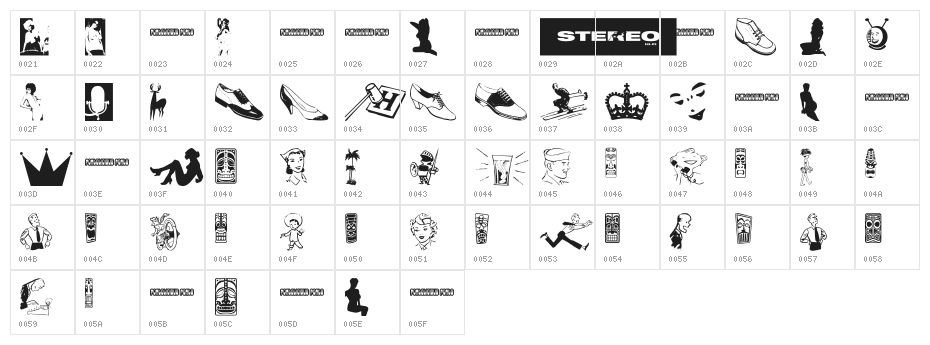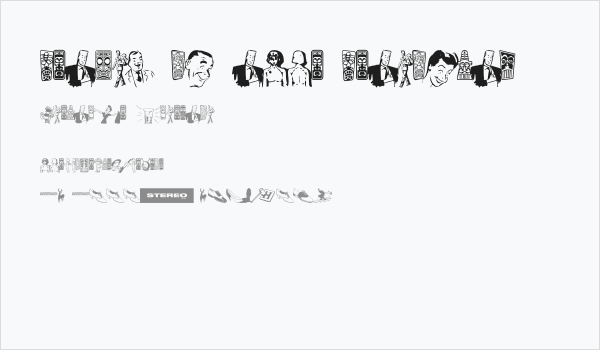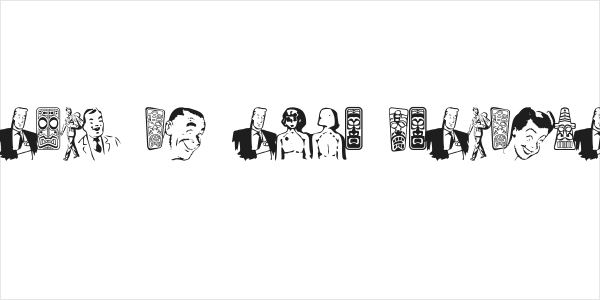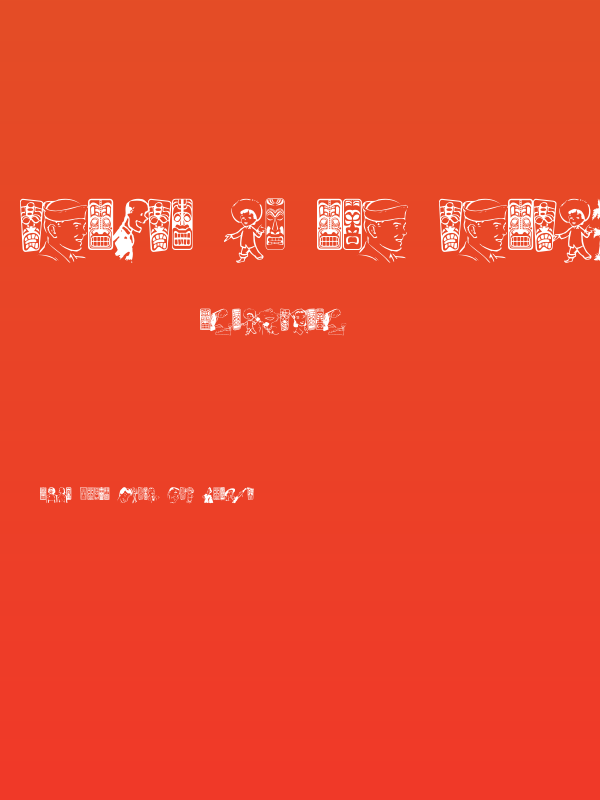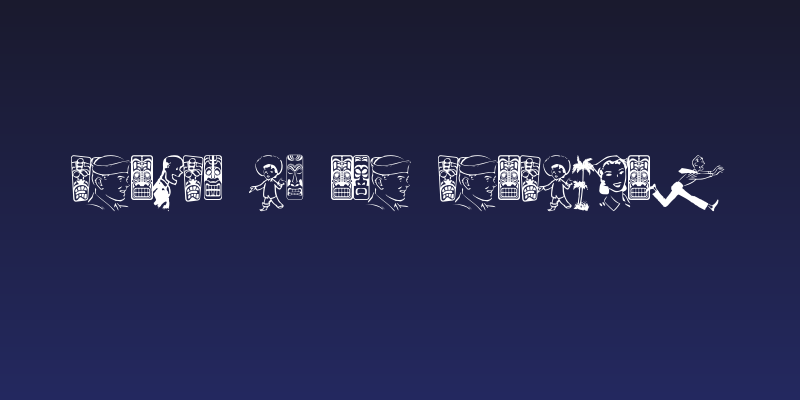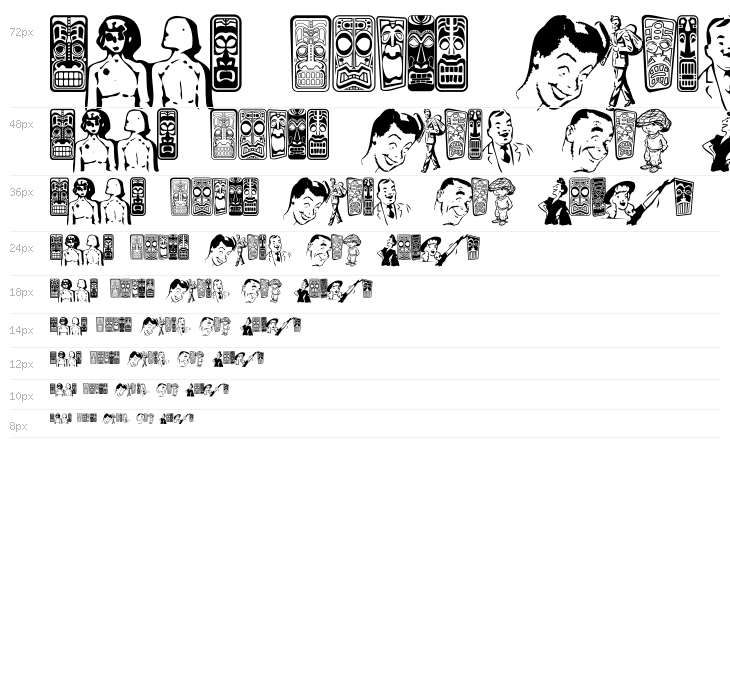
Return of the Retrobats Font
Return of the Retrobats Description
This collection features a playful and eclectic array of retro-inspired graphics, capturing the essence of mid-20th century pop culture. The designs include a variety of characters, tiki motifs, and vintage objects, all rendered in a bold, illustrative style. The imagery is reminiscent of classic advertisements and comic strips, with a humorous and nostalgic flair. The characters are expressive, with exaggerated features and dynamic poses, adding a lively and whimsical touch to the overall aesthetic. The use of black and white enhances the vintage feel, making it suitable for projects that aim to evoke a sense of nostalgia and fun.
| Use Case | Logos, Posters, Advertisements |
| Proposed Projects | Ideal for retro-themed posters, vintage-style advertisements, comic book designs, and playful branding projects. |